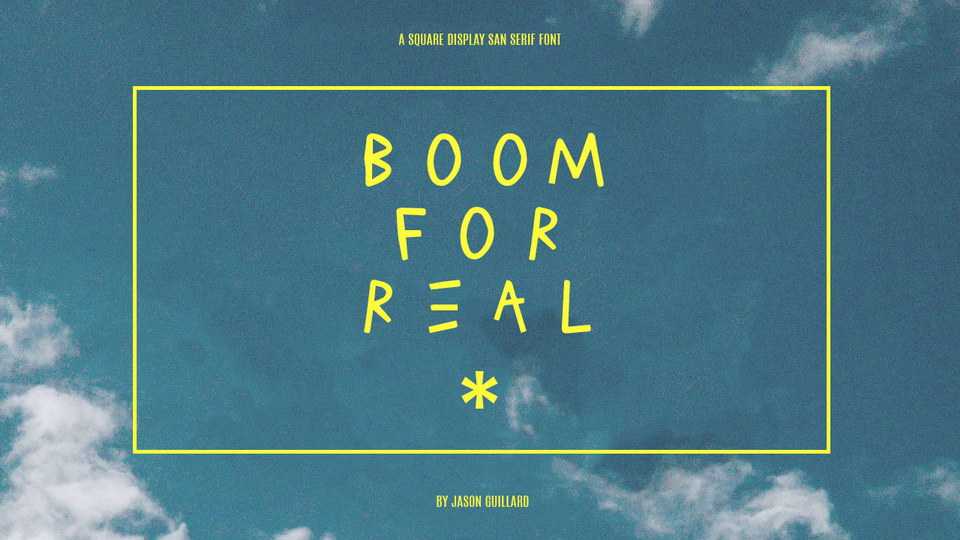
Download Boom For Real font based on the graffiti style of the wildly popular neo-expressionist artist Jean-Michel Basquiat. Boom For Real is a catchphrase of Jean-Michel Basquiat’s, which can also be found in two of the paintings in the show, Jimmy Best and Untitled (Crown).